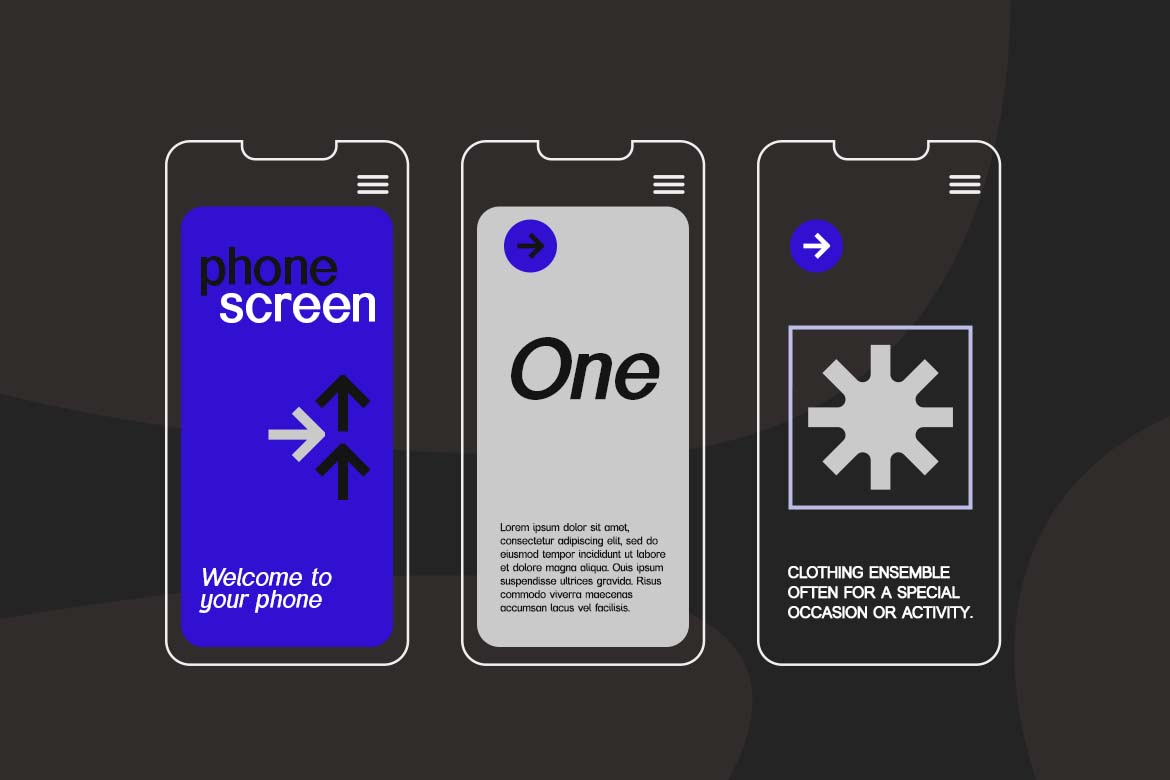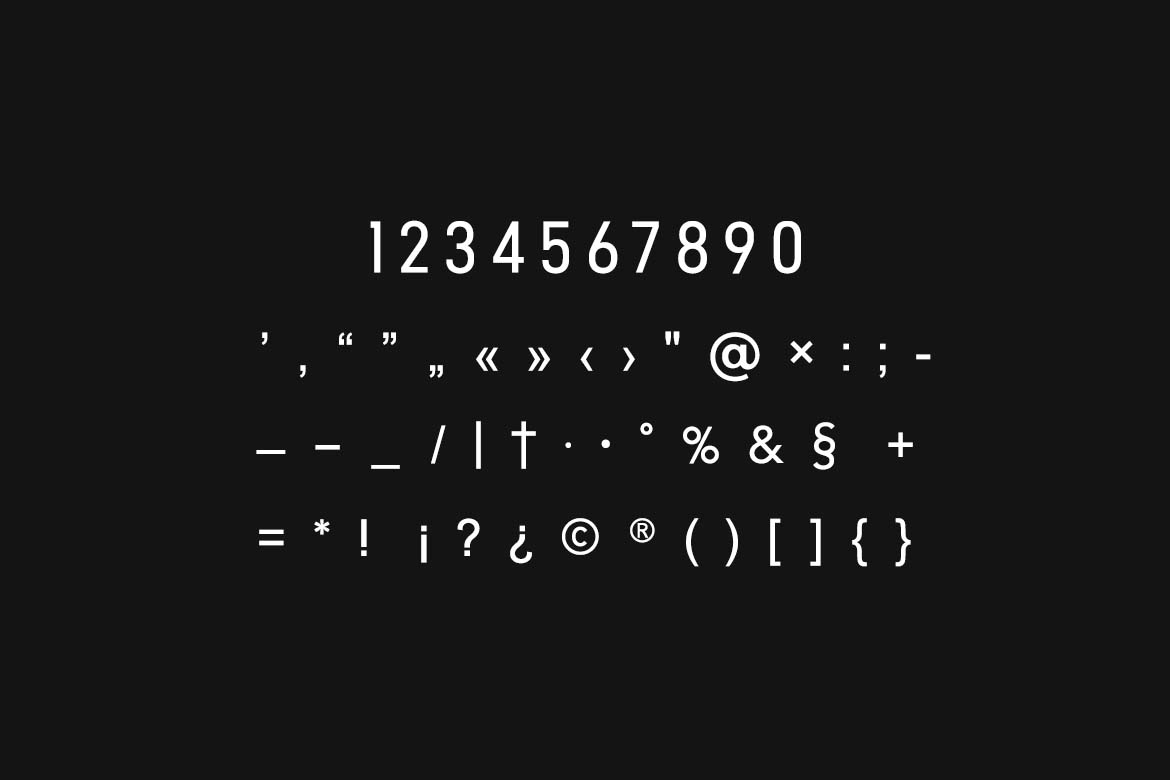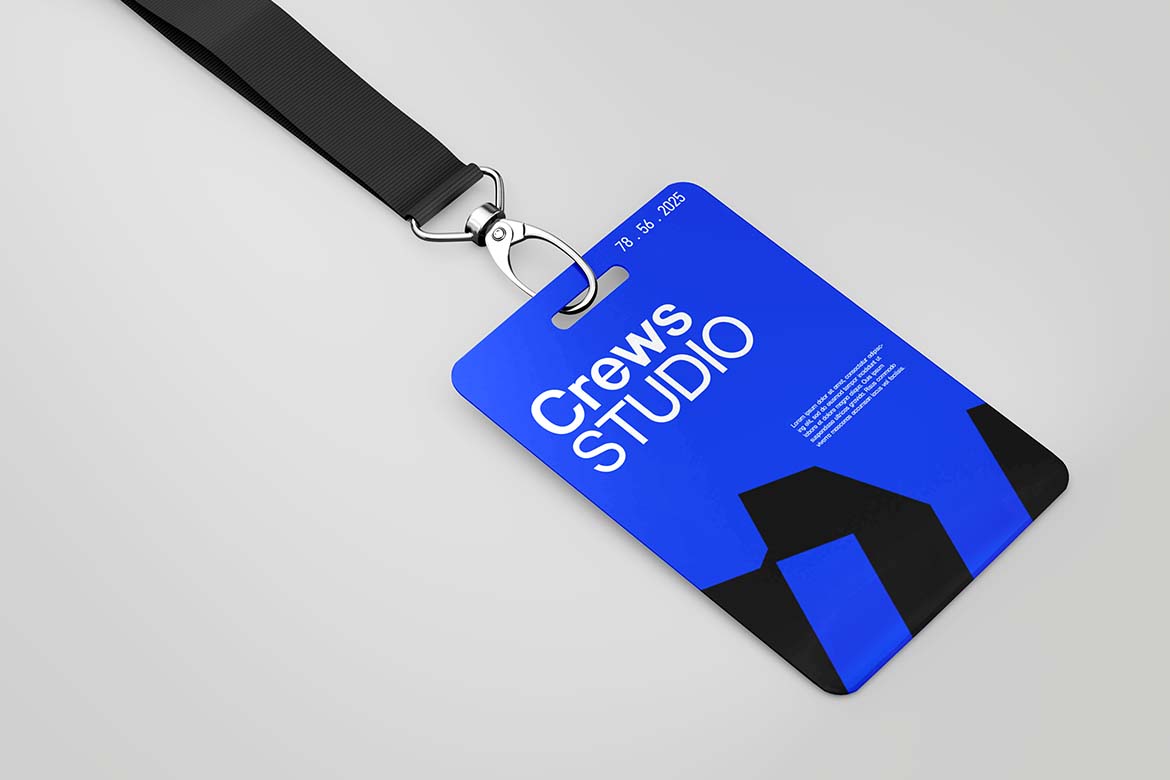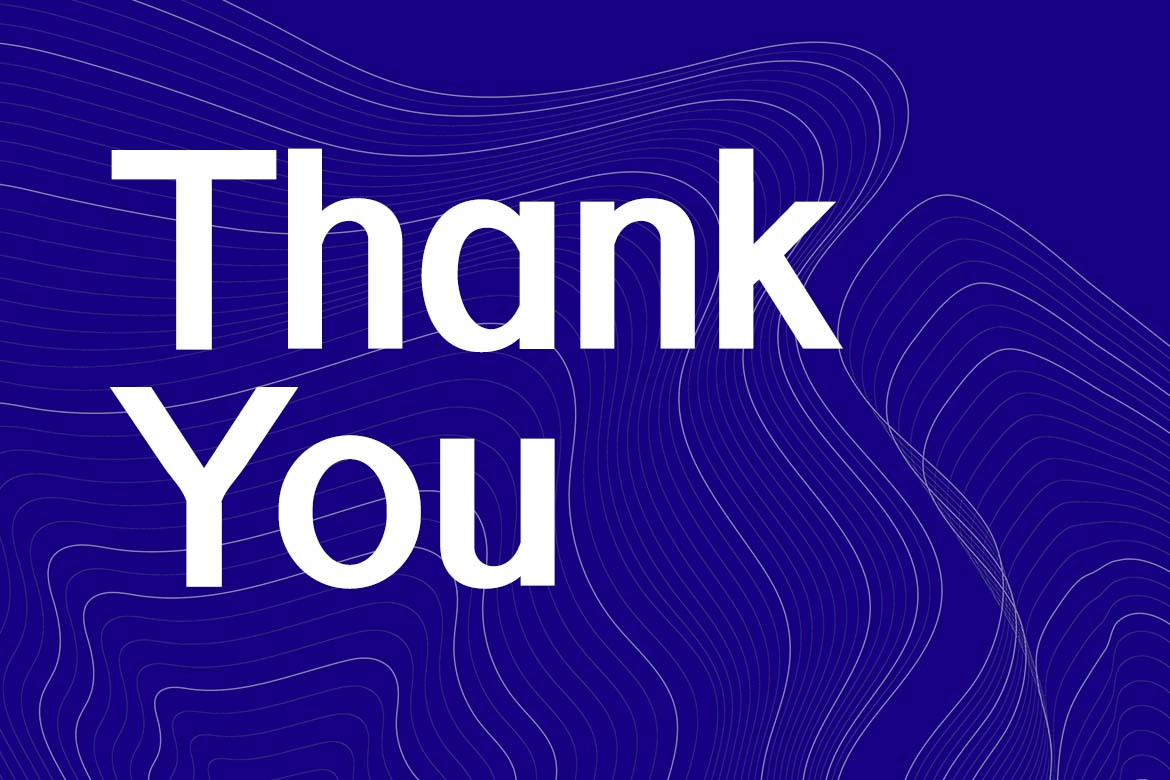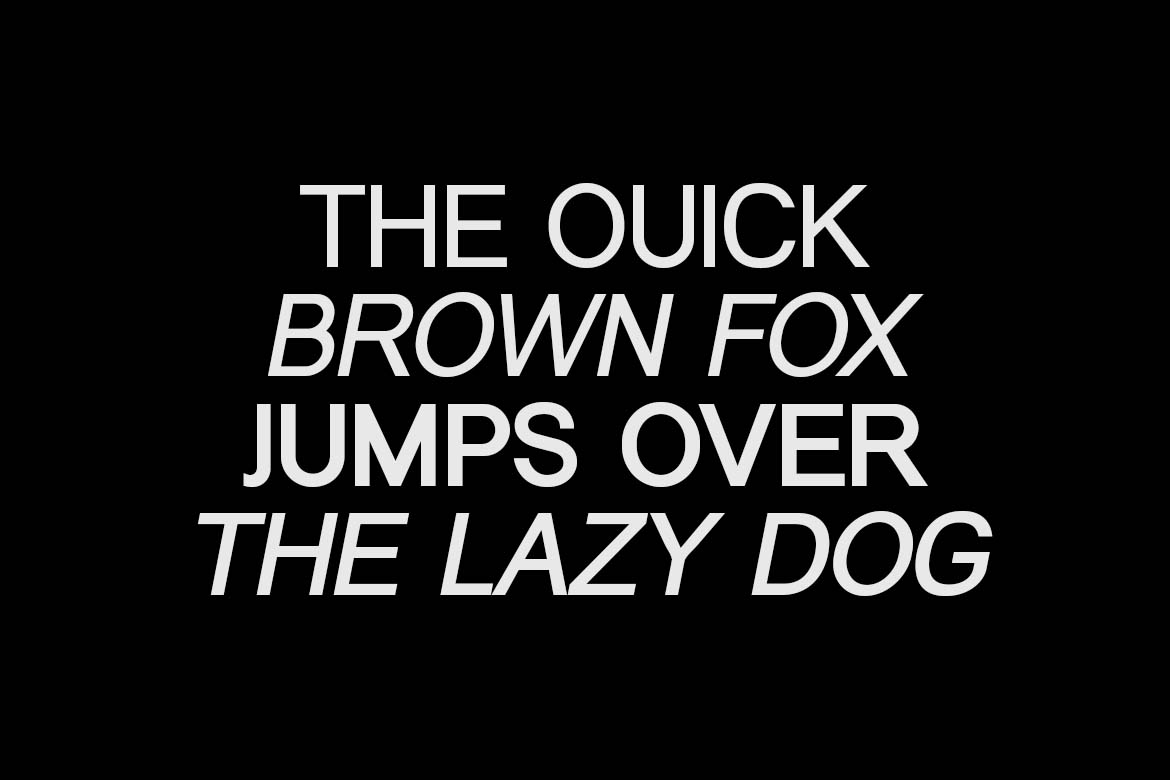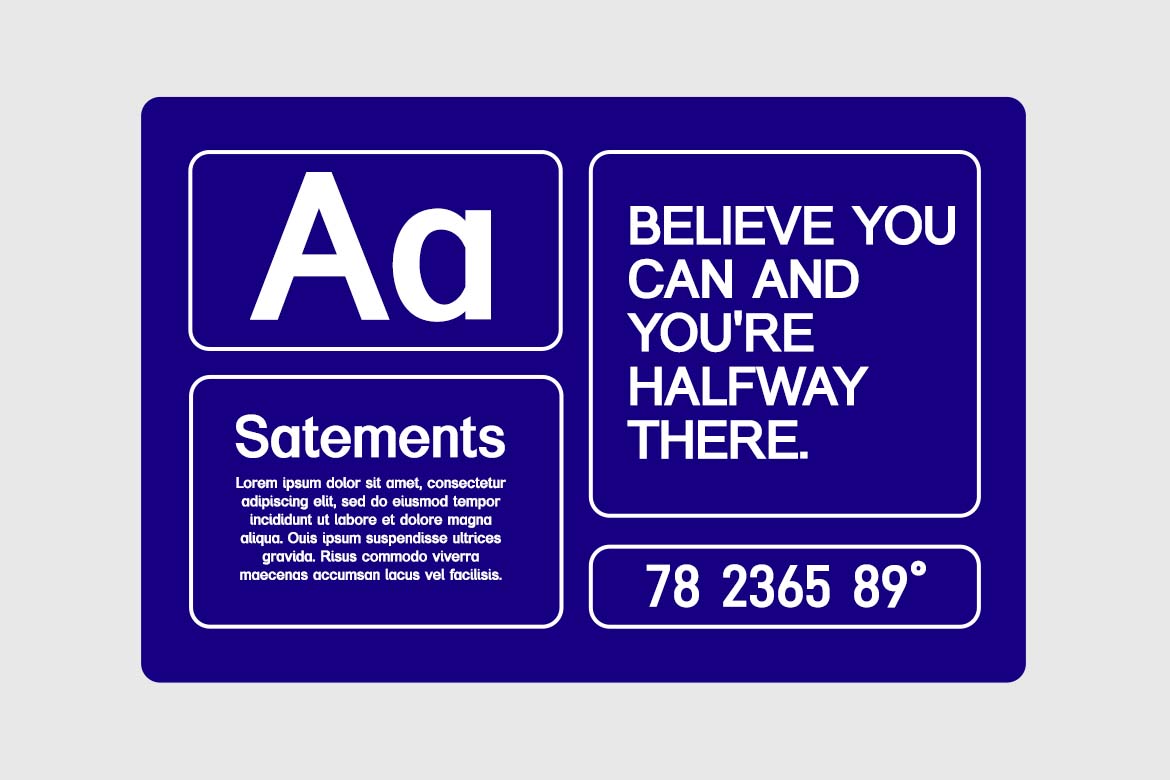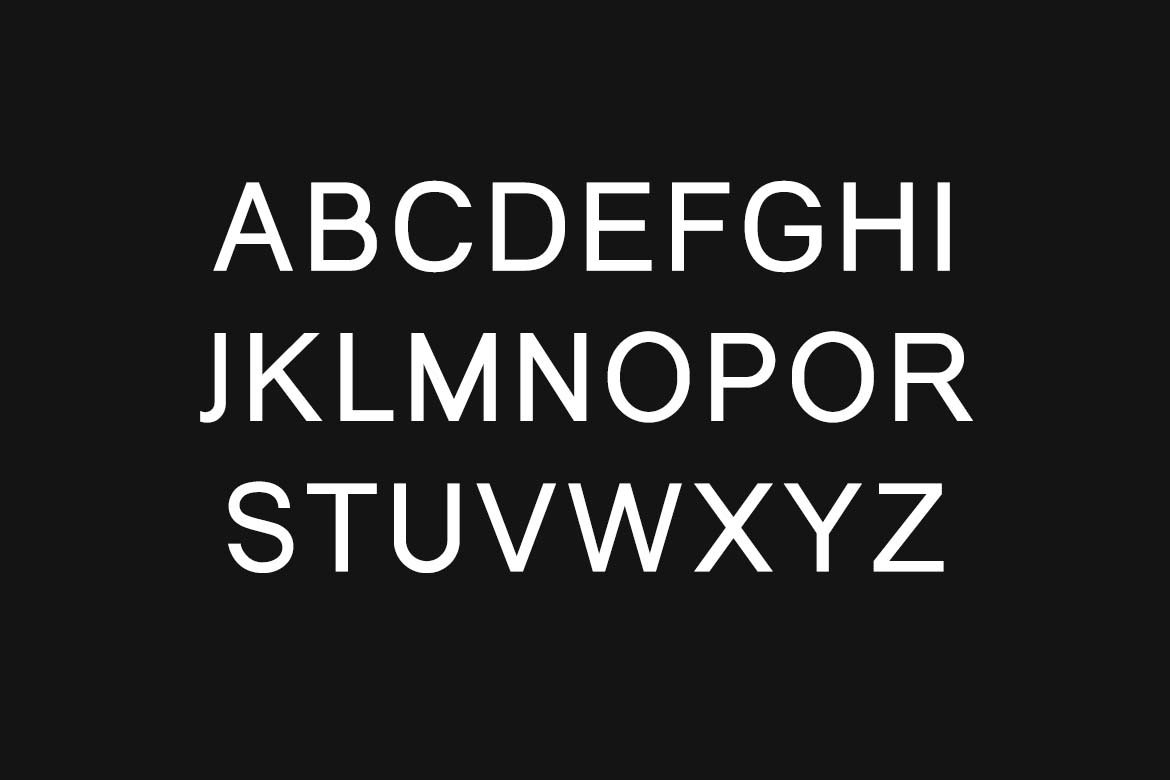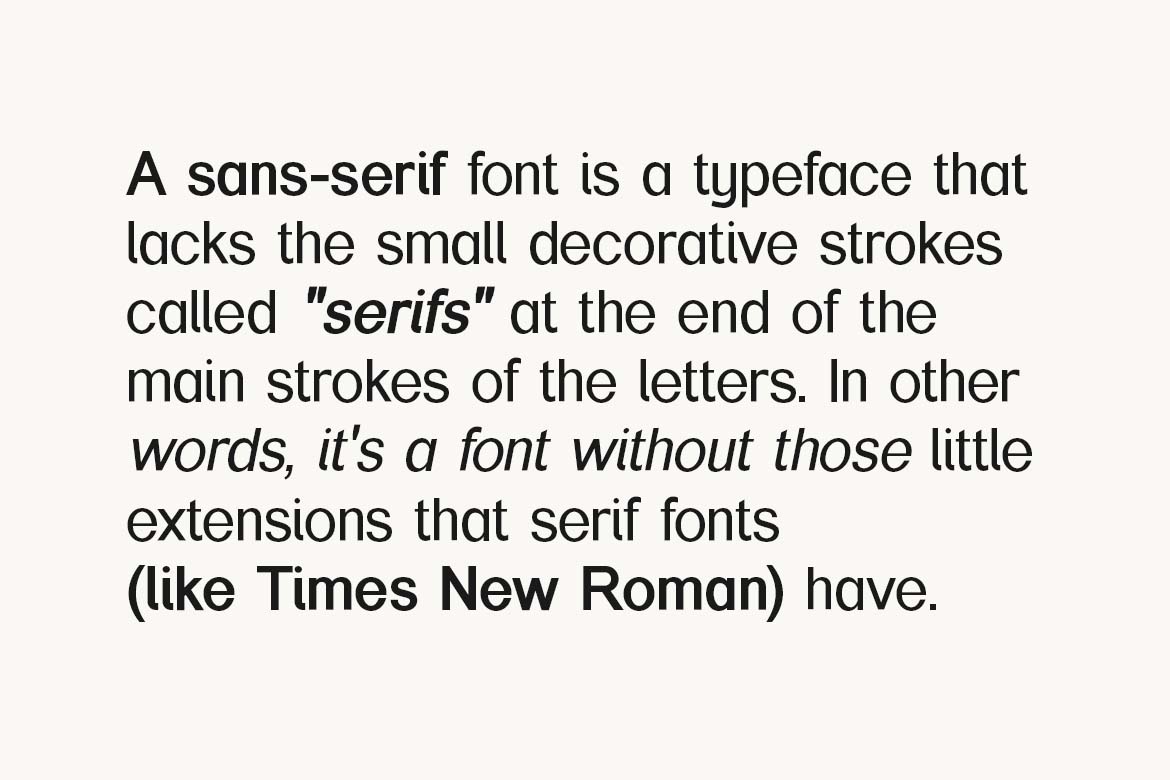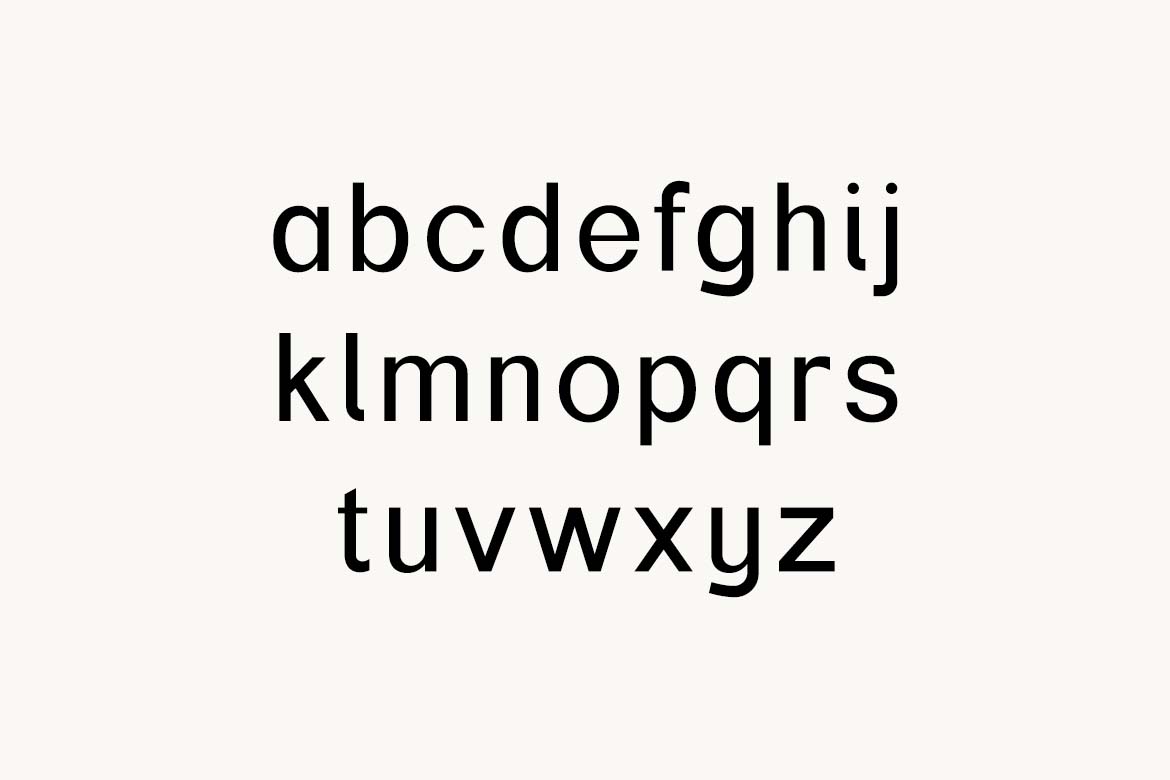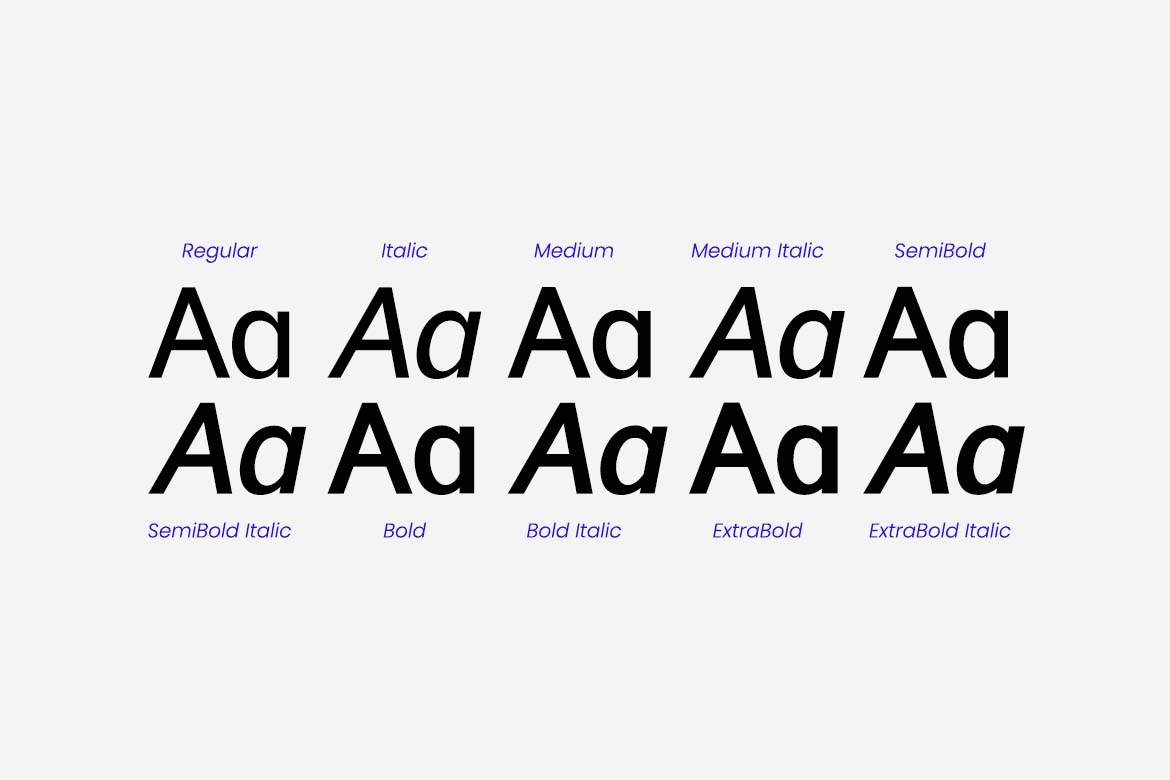
Prevalent Sans Pro Modern Sans Serif Family Font
Prevalent Sans Pro Modern Sans Serif Family Font. The modern display font feels beautiful classy, elegant, and stylish. This font is ideally suited for a wide variety of projects, such as signature, stationery, logo, wedding, typography quotes, magazine or book covers, website headers, branding, and more. Also, fashion-related branding or editorial design displays both masculine and feminine qualities.